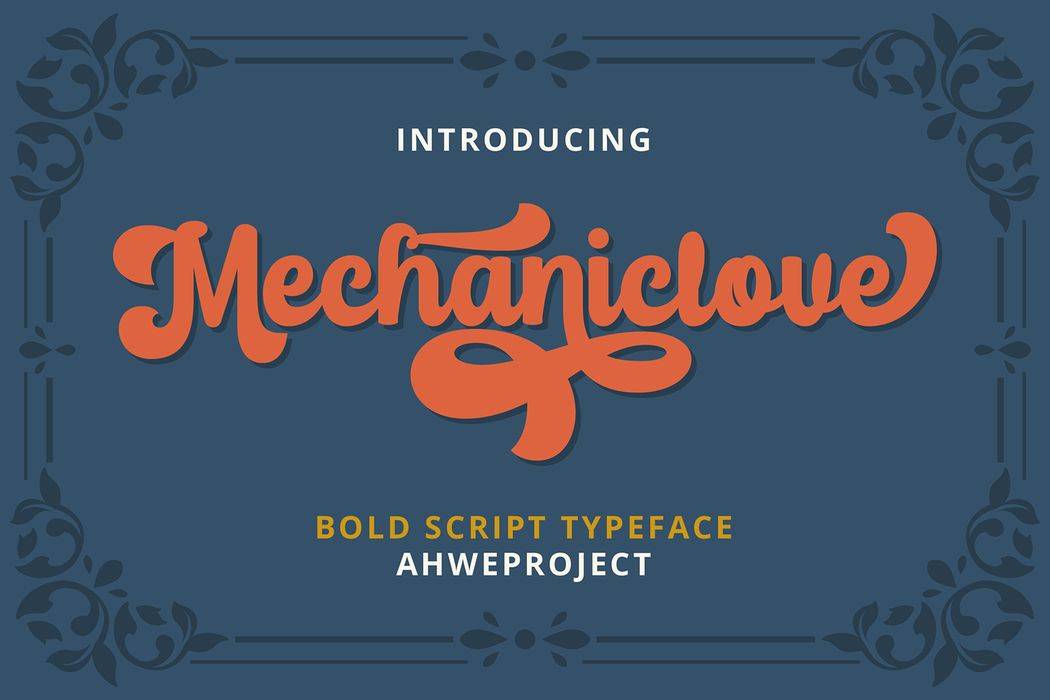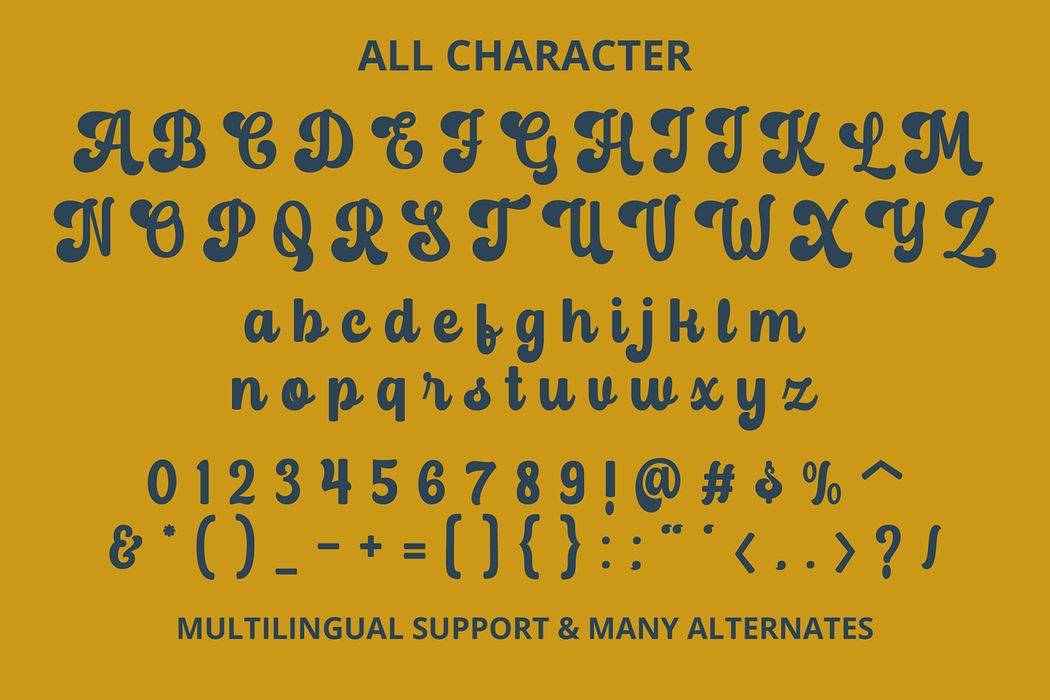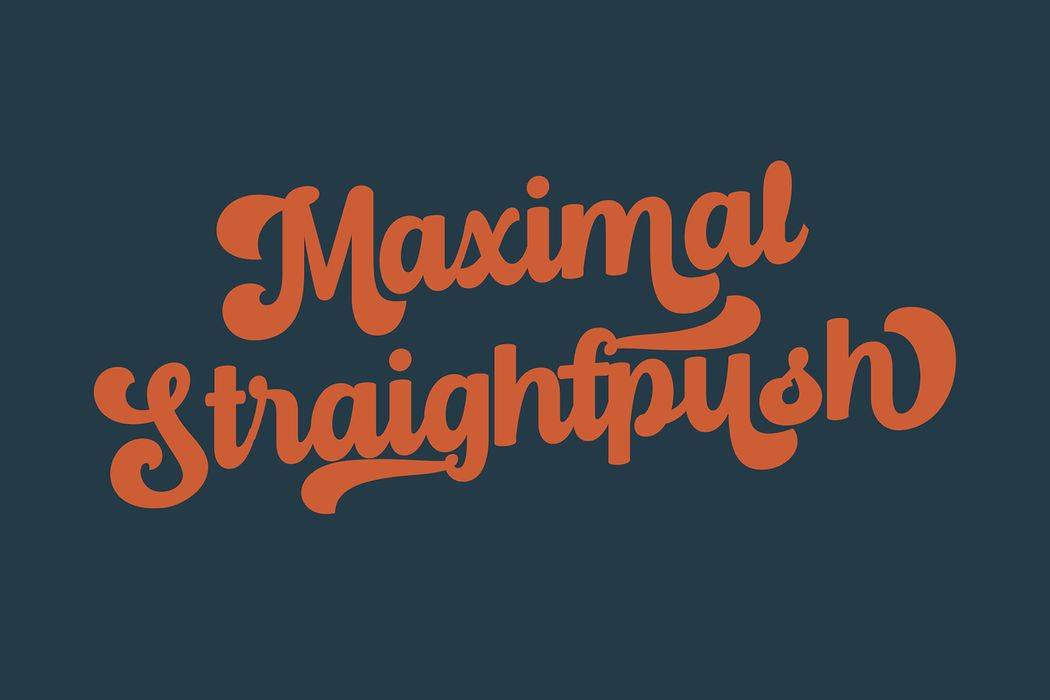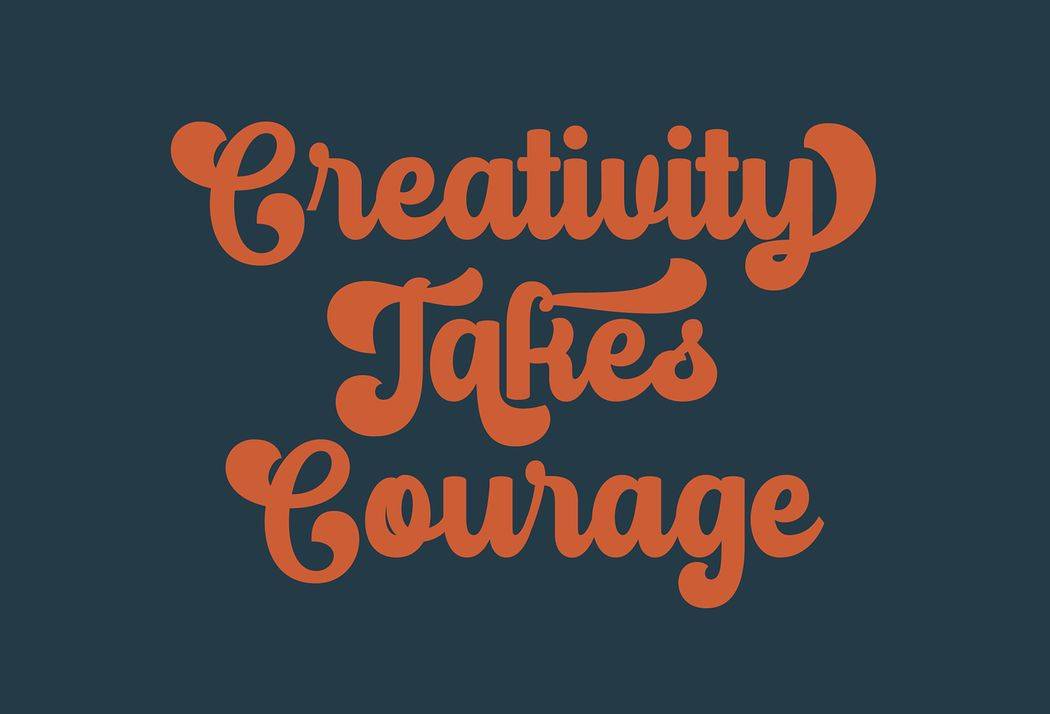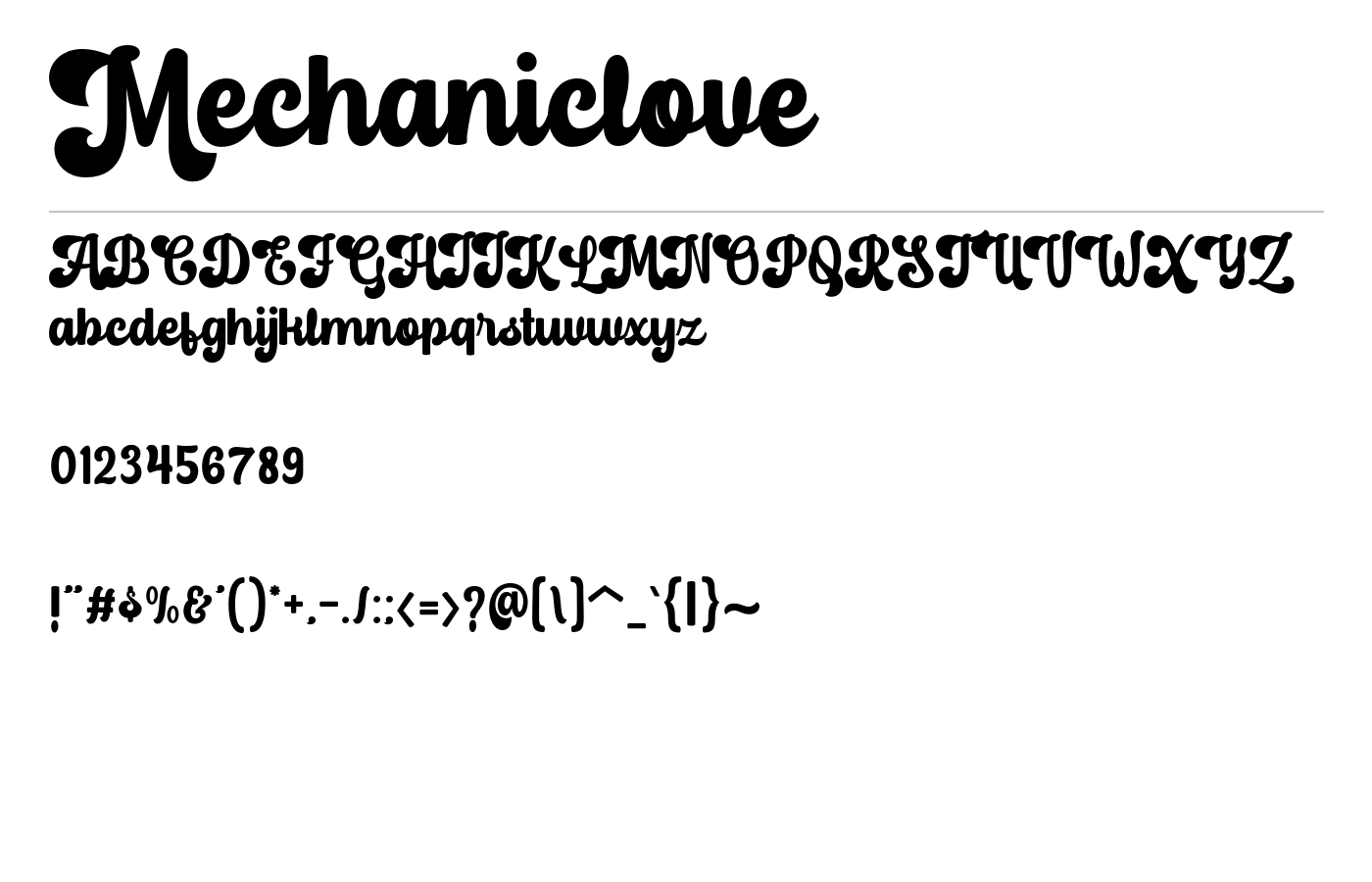
Mechaniclove is a bold, playful script font with soft, rounded edges and a whimsical feel. Its thick, flowing letterforms and curly details give it a friendly, retro charm, making it ideal for eye-catching headlines, logos, and creative branding that want to convey warmth and personality. This font works well in projects that need a fun and inviting touch without sacrificing clarity.
Mechaniclove Font
About Mechaniclove Font
| Font family | Mechaniclove Font |
| Designer | Dida Ahluddin |